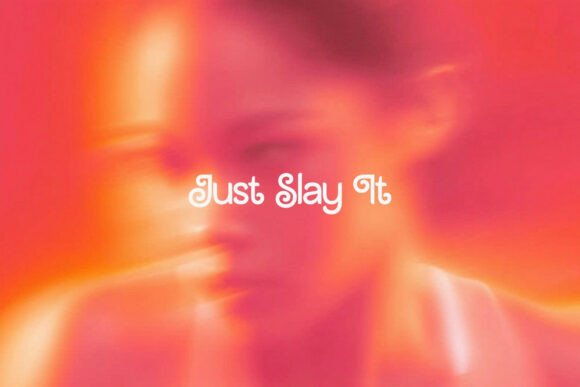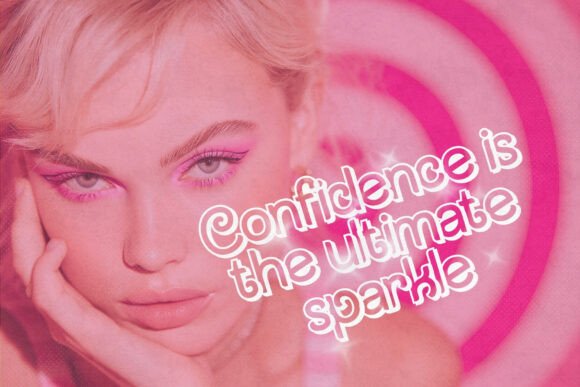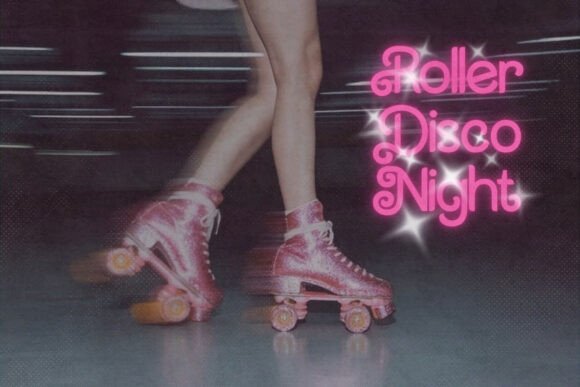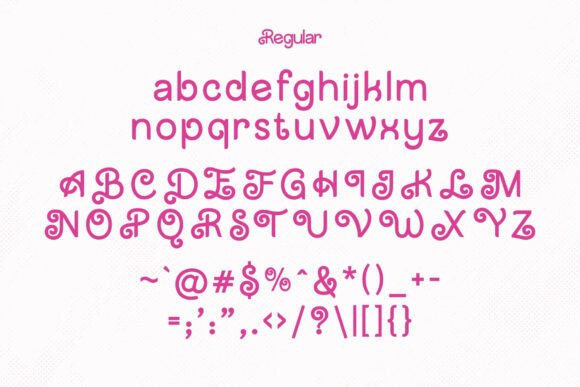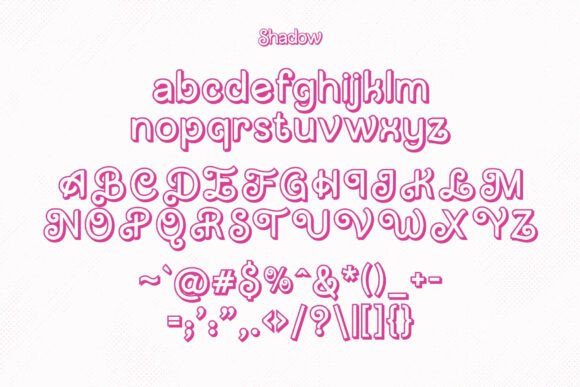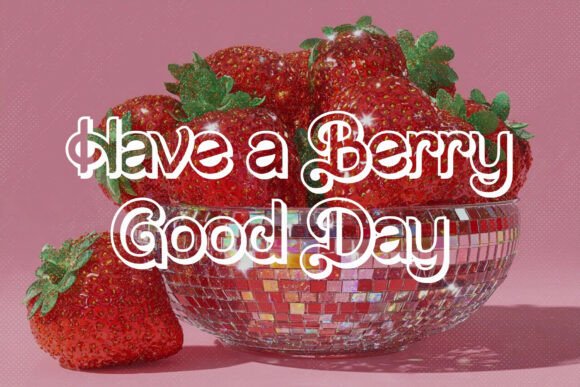
Introducing Barbella Regular Font: The Ultimate Display Font for Glamorous Designs
Are you looking for a font that exudes confidence, sparkle, and style? Look no further than Barbella Regular Font, a bold and fabulous typeface designed to steal the spotlight. With its playful, curly, and whimsical style, Barbella is the perfect addition to any design project that demands attention and radiates charm.
The Essence of Barbella Font
Barbella font is a display font that embodies the essence of fun, femininity, and flair. Its chic curves and radiant personality make it an ideal choice for projects that require a touch of glamour and sophistication. Whether you’re working on fashion branding, beauty packaging, event invitations, social media graphics, posters, or anything that needs a splash of dazzling energy, Barbella is the perfect fit.
Barbella Regular Font is a versatile typeface that can be used for a wide range of design projects. Designers and crafters can use Barbella to create eye-catching logos, trendy merchandise, vibrant editorial layouts, and more. With Barbella, you can add that unmistakable wow factor to your designs and take your creativity to the next level.
Key Features of Barbella Font
- Playful and Whimsical Style: Barbella font features a playful, curly, and whimsical style that adds a touch of fun and personality to your designs.
- Confidence and Sparkle: With its bold and fabulous design, Barbella exudes confidence and sparkle, making it perfect for projects that demand attention.
- Chic Curves and Radiant Personality: Barbella’s chic curves and radiant personality make it an ideal choice for projects that require a touch of glamour and sophistication.
- Unapologetically Glamorous Vibe: Barbella has an unapologetically glamorous vibe that makes it perfect for fashion branding, beauty packaging, and other luxury projects.
Use Cases for Barbella Regular Font
Barbella Regular Font can be used for a wide range of design projects, including:
- Fashion Branding: Use Barbella to create bold and eye-catching logos, packaging, and marketing materials for your fashion brand.
- Beauty Packaging: Add a touch of glamour and sophistication to your beauty packaging with Barbella’s playful and whimsical style.
- Event Invitations: Create stunning event invitations with Barbella’s bold and fabulous design.
- Social Media Graphics: Use Barbella to create eye-catching social media graphics that demand attention and sparkle.
- Posters and Flyers: Add a touch of dazzling energy to your posters and flyers with Barbella’s playful and whimsical style.
Why Choose Barbella Regular Font?
There are many reasons why you should choose Barbella Regular Font for your design projects. Here are a few:
- Unique and Eye-Catching Design: Barbella’s playful and whimsical style makes it a unique and eye-catching addition to any design project.
- Versatile and Flexible: Barbella can be used for a wide range of design projects, from fashion branding to social media graphics.
- Easy to Read and Understand: Despite its playful and whimsical style, Barbella is easy to read and understand, making it perfect for projects that require a touch of personality.
In conclusion, Barbella Regular Font is a bold and fabulous typeface that is perfect for designers and crafters looking to add a touch of glamour and sophistication to their design projects. With its playful, curly, and whimsical style, Barbella is sure to steal the spotlight and leave a lasting impression. Whether you’re working on fashion branding, beauty packaging, event invitations, social media graphics, posters, or anything that needs a splash of dazzling energy, Barbella is the perfect fit. So why wait? Try Barbella Regular Font today and watch your creativity shine!